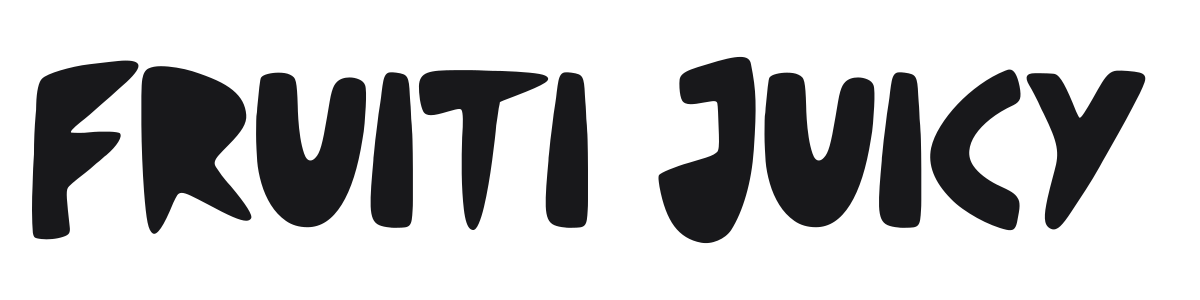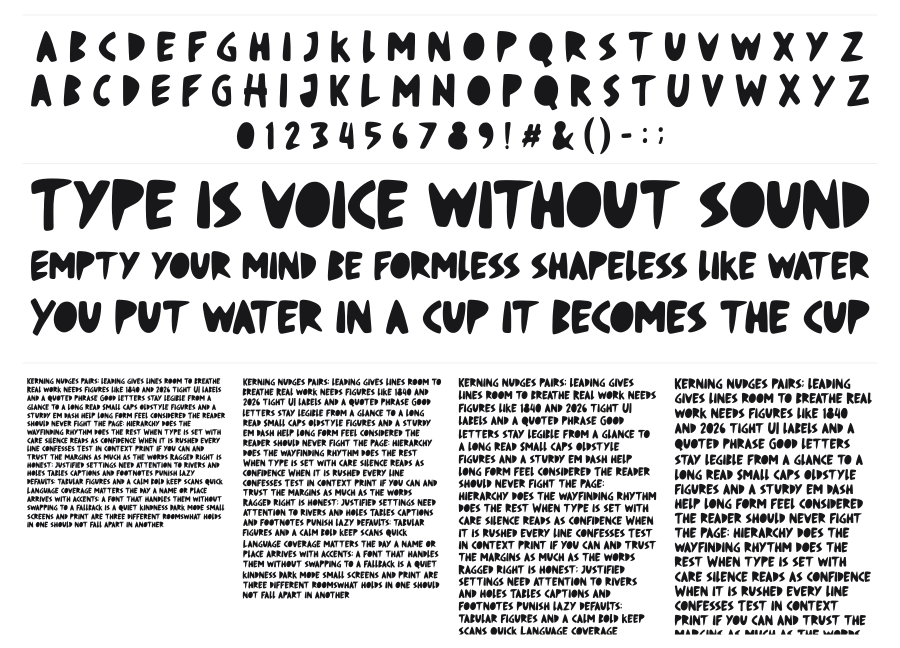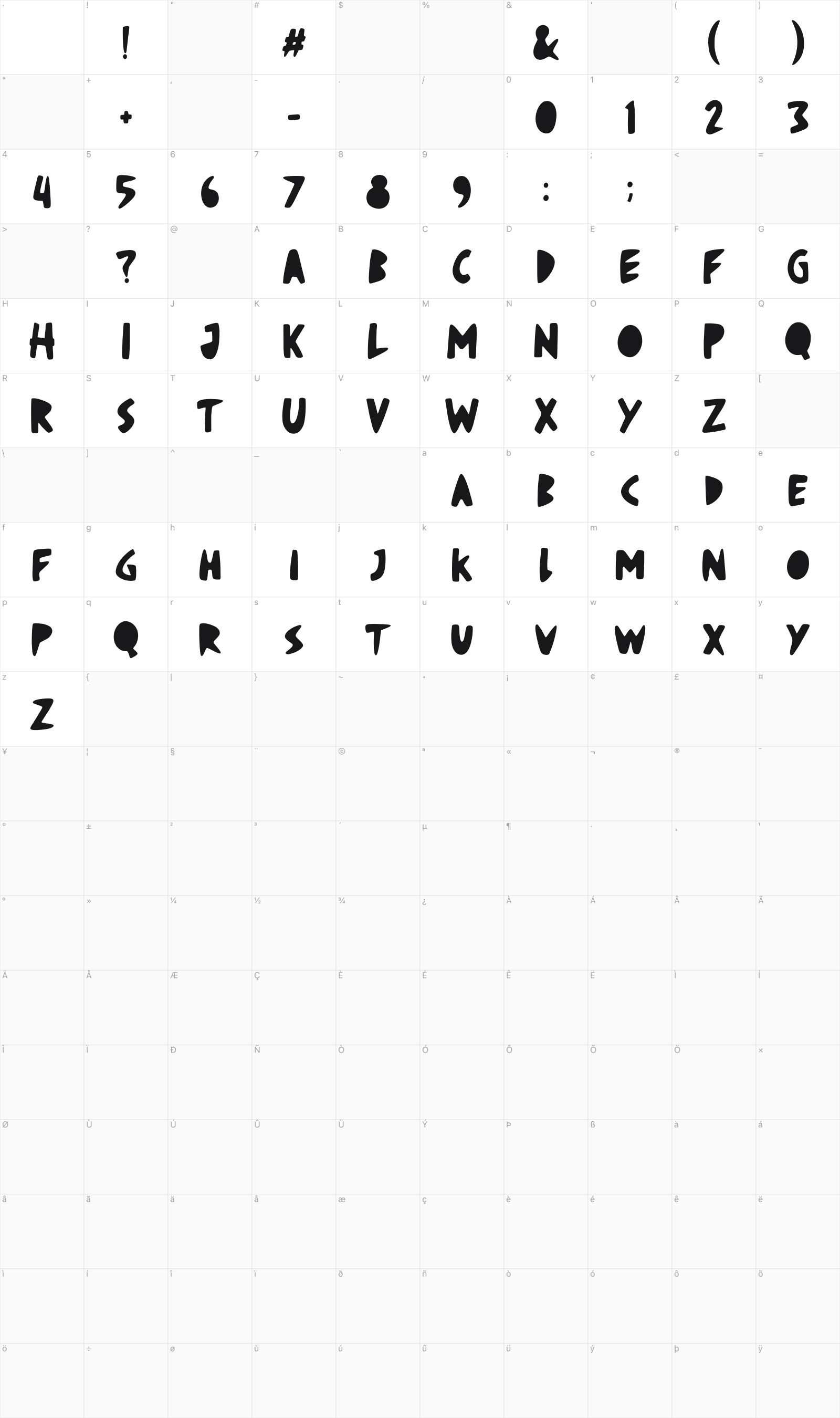
Fruiti Juicy
Fruiti Juicy is a heavy, rounded display font with a loose, hand-drawn energy that feels like it was painted with a thick brush. Each character has its own slightly irregular shape, giving the whole word a lively, bouncing rhythm. It suits fruit brands, kids' products, food trucks, and anything that should feel spontaneous and joyful.